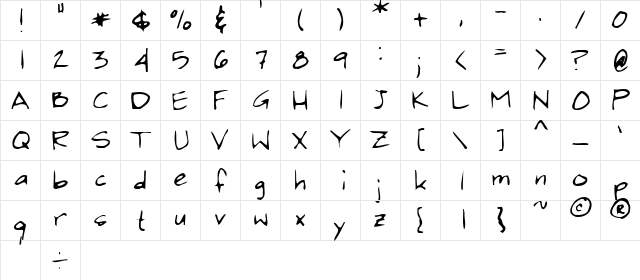
PenPalOne5 Regular
Design Context for PenPalOne5 Typeface
PenPalOne5 takes a measured approach to typography — its balanced proportions and neutral character make it a reliable workhorse for both digital and print work.